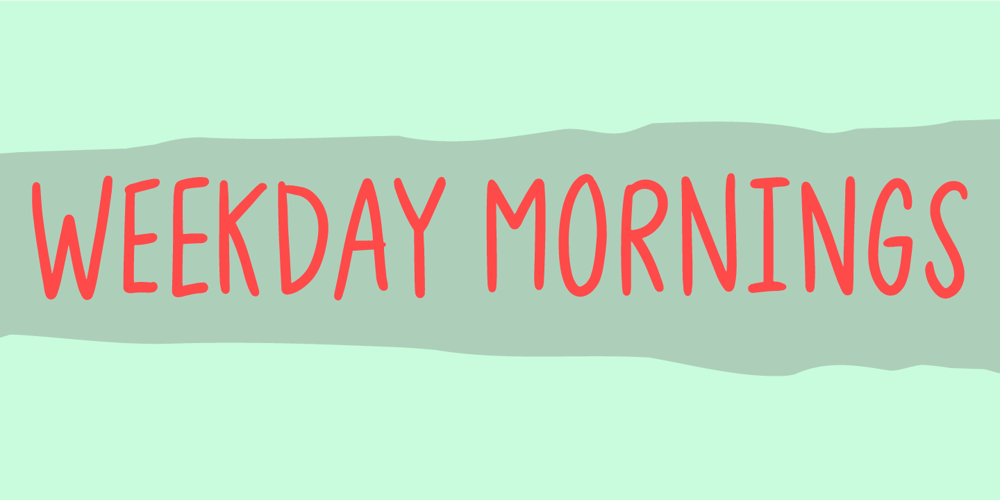
Weekday Mornings
Weekday Mornings font
Weekday Mornings Font Family was designed by Jakob Fischer and published by Bogstav. Weekday Mornings contains 2 styles and family package options. “Weekday Mornings” are the 2 first words from the song “Nancy” by Prefab Sprout. Just like the song, the font has a romantic theme and could be considered as “easy listening”. Well, I’ve added 7 slightly different versions of each letter, enough to make the font look like the real handwriting which was the base of the font.Fun fact: I had this song on repeat when finishing the font. I still do love that song! ๐Ÿ™‚